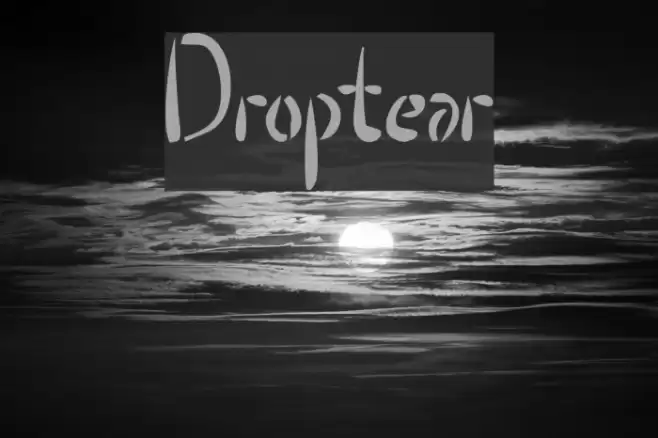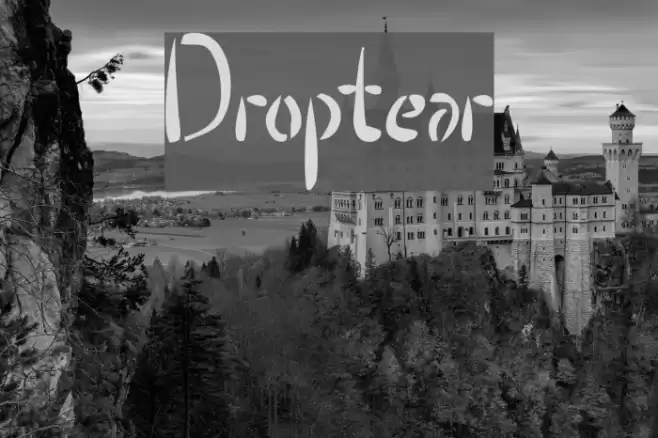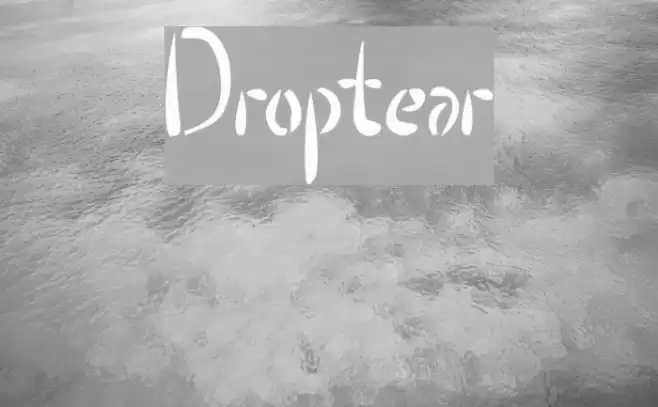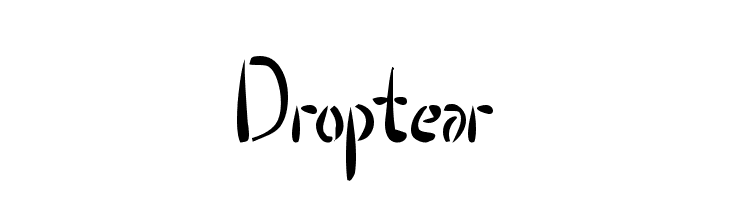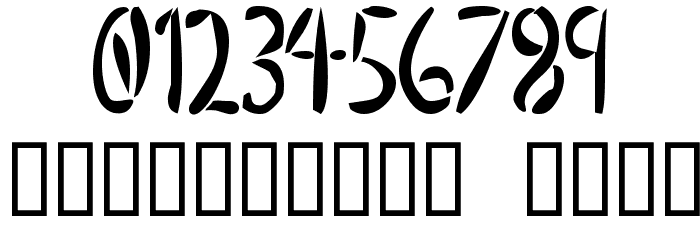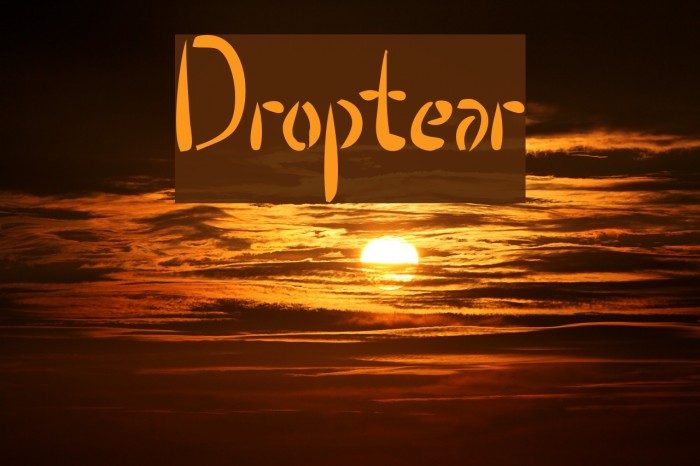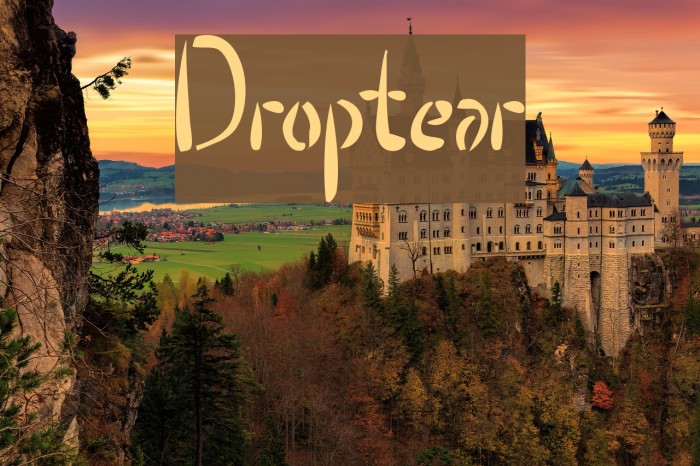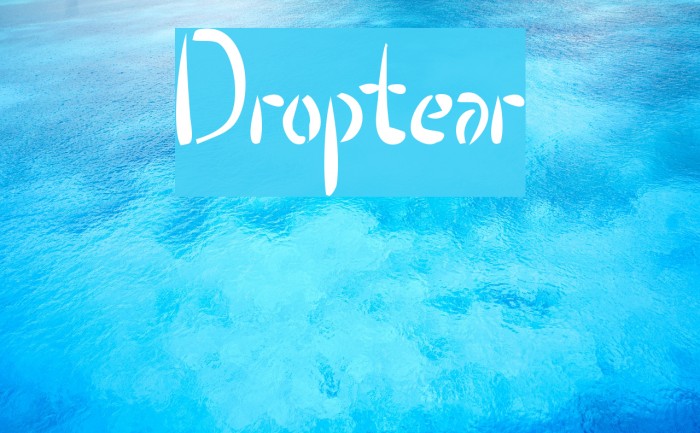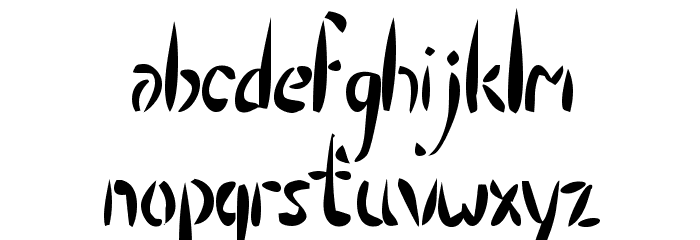
Droptear Font
Droptear Description
This font features a unique, artistic style with a hand-drawn appearance. The characters are bold and have a dynamic flow, with varying stroke thickness that adds a sense of movement and energy. The uppercase letters are particularly striking, with sharp angles and curves that create a distinctive look. The lowercase letters maintain the same energetic style, with some characters having elongated or exaggerated features. The numbers are consistent with the overall design, offering a playful yet sophisticated aesthetic. The special characters are creatively designed, fitting seamlessly with the rest of the font. This font is perfect for projects that require a bold, artistic touch.
A bold, artistic font with dynamic strokes and a hand-drawn appearance from Uncategorized fonts.
- Overall Style: Artistic, Dynamic